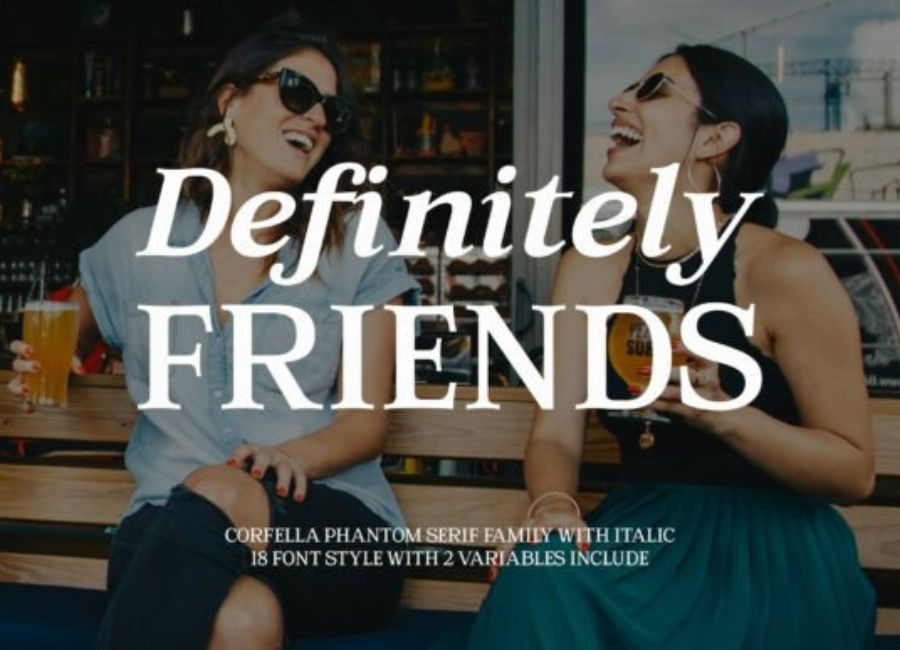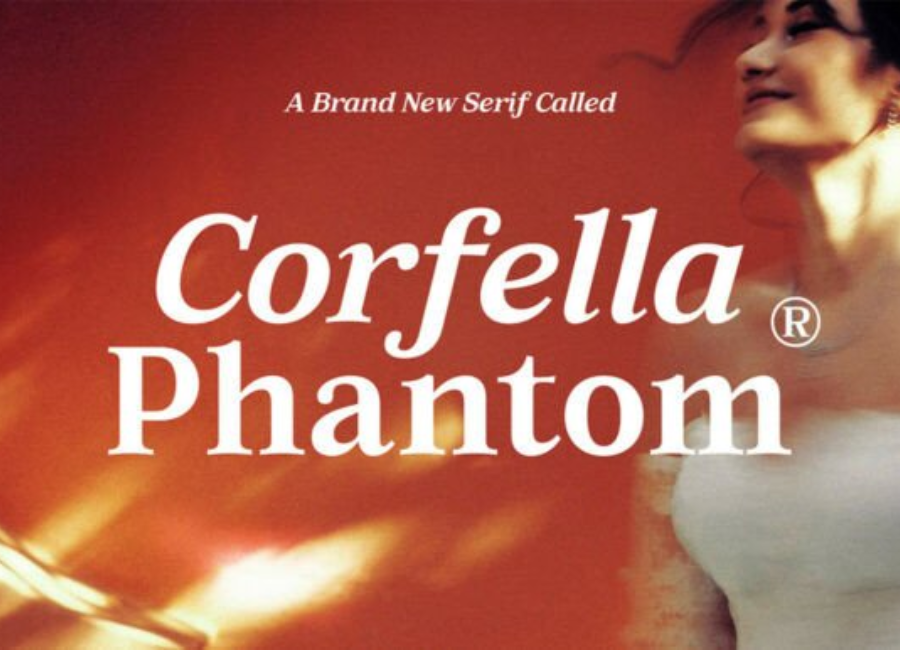
Corfella Phantom Font: The Allure of Modern Elegance in Typography
Typography shapes the visual language of every brand, publication, and digital interface. Among the thousands of available typefaces, some manage to stand out through their uniqueness, artistry, and emotional presence. The Corfella Phantom Font is one such typeface—a modern, stylish, and expressive design that continues to captivate designers looking for an elegant yet contemporary touch. With its distinctive curves, graceful strokes, and sleek modernity, Corfella Phantom has become a favored choice for branding, fashion design, luxury packaging, and editorial work.
At its core, the Corfella Phantom Font strikes a delicate balance between sophistication and artistic flair. Unlike traditional serif or sans-serif fonts that sometimes prioritize simplicity over personality, this typeface confidently embraces decorative elements without becoming excessively ornate. Its characters often feature slightly elongated terminals, smooth transitions, and subtle contrasts in thickness. These features give it an almost calligraphic identity—one that feels handcrafted but still highly refined.
What truly sets the Corfella Phantom Font apart is its ability to merge modern minimalism with classic elegance. It does not overwhelm the viewer with heavy embellishments or overly dramatic flourishes. Instead, it maintains a graceful flow that feels clean, polished, and luxurious. Designers often describe it as a “statement font,” meaning it can instantly elevate a project by simply being present. Whether used in headlines, logos, or product labels, the font exudes confidence and charm.
The emotional tone of the Corfella Phantom Font also plays an important role in its popularity. Typography is not only visual—it communicates mood, attitude, and intention. Corfella Phantom projects a sense of exclusivity and sophistication. It feels modern enough for high-end tech products yet artistic enough for fashion and beauty branding. Its fluid strokes give off a romantic and creative vibe, while its refined structure suggests professionalism and attention to detail. This unique duality makes it extremely versatile.
In branding, a font must do more than look attractive—it must be memorable. Corfella Phantom excels in logo design because each letter possesses distinct visual character. When used for brand names, it can create a sense of identity and storytelling. Luxury boutiques, perfume brands, jewelry designers, and lifestyle companies often gravitate toward this typeface for precisely that reason. It delivers visual impact without overshadowing the brand’s message.
The font also performs exceptionally well in editorial and print contexts. Magazine covers, fashion spreads, and artistic publications benefit from its stylish curves and graceful silhouette. When paired with minimalistic photography or bold layouts, Corfella Phantom creates a striking contrast that draws the viewer’s eye. Its elegance enhances modern aesthetics, making it suitable for high-fashion campaigns and premium content creation.
One of the reasons for its rising popularity is the increasing demand for expressive display fonts in digital media. As social media platforms emphasize visual storytelling, creators seek typefaces that can instantly convey mood and personality. Corfella Phantom’s contemporary aesthetic aligns perfectly with modern branding trends that prioritize clean luxury. It pairs beautifully with neutral color palettes, minimalist compositions, and high-quality imagery—elements that dominate today’s digital landscape.
From a technical standpoint, the font is designed with precision. Its letterforms maintain consistency, ensuring readability even in larger sizes. While it shines most as a display font, it can be paired with simple sans-serif companions like Helvetica or Montserrat, or even modern serifs like Playfair Display, to create well-structured and visually compelling typography systems. The contrast between Corfella Phantom’s artistic style and a clean secondary font adds depth and sophistication to any design project.
Despite its modern appeal, the Corfella Phantom Font holds a timeless quality. Designers often look for typefaces that will not feel outdated in a few years, and this font manages to stay relevant because its elegance is rooted in classical design principles. The slight calligraphic influence gives it a handcrafted charm, while its smooth, balanced curves feel contemporary and fresh.
In a world where visual identity matters more than ever, choosing the right font can transform a design from ordinary to extraordinary. The Corfella Phantom Font stands as a testament to the power of typography to shape emotion, elevate aesthetics, and create lasting impressions. Whether used for luxury branding, artistic projects, or digital content, it offers an unmatched blend of creativity and refinement. For designers seeking a typeface that embodies modern sophistication with graceful character, Corfella Phantom is an inspiring and compelling choice.